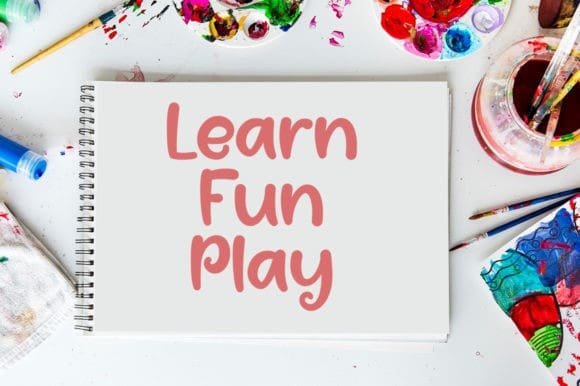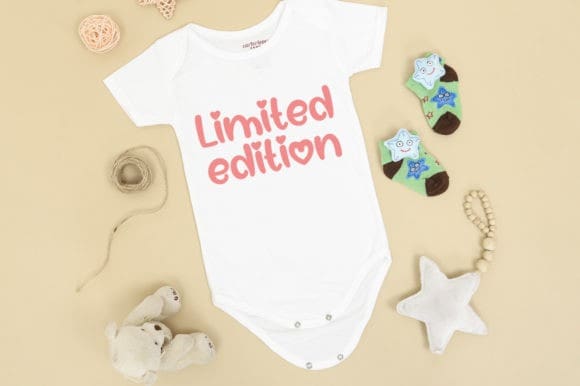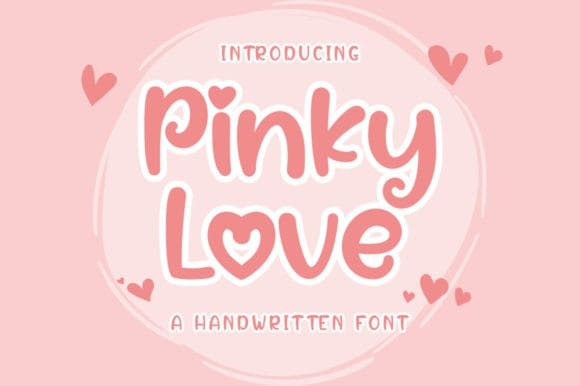
Pinky Love Font
Pinky Love Font is a fun and smart-looking handwritten font. It looks ravishing on invitations, thank you cards, quotes, greeting cards, logos, business cards and every other design which needs a customized touch.